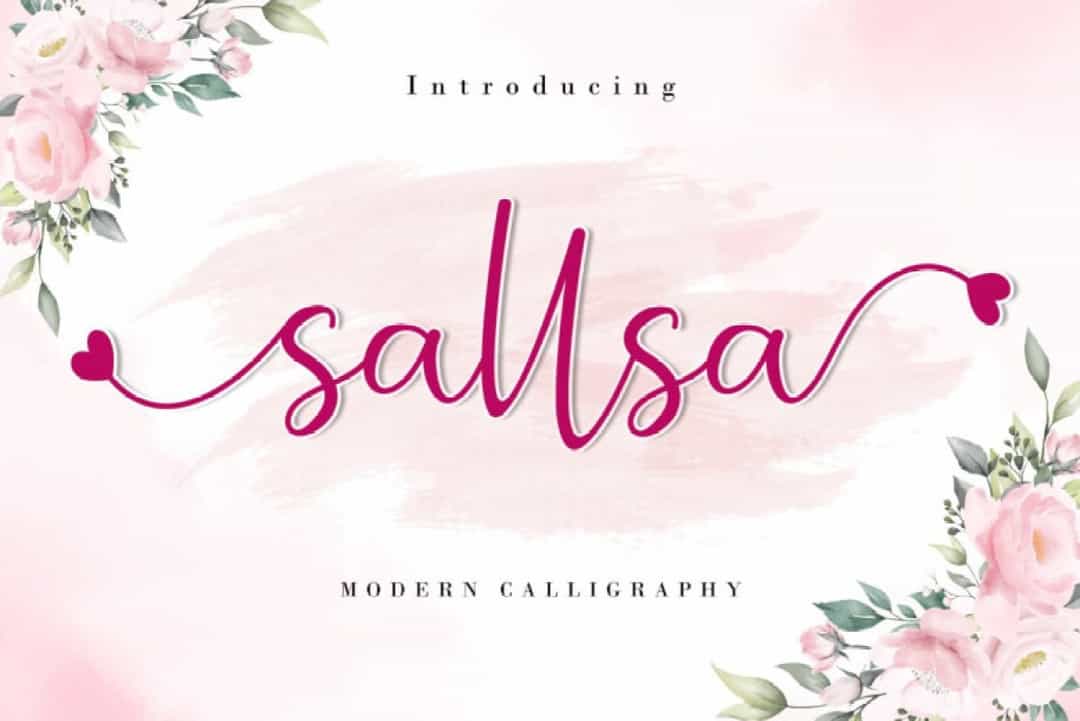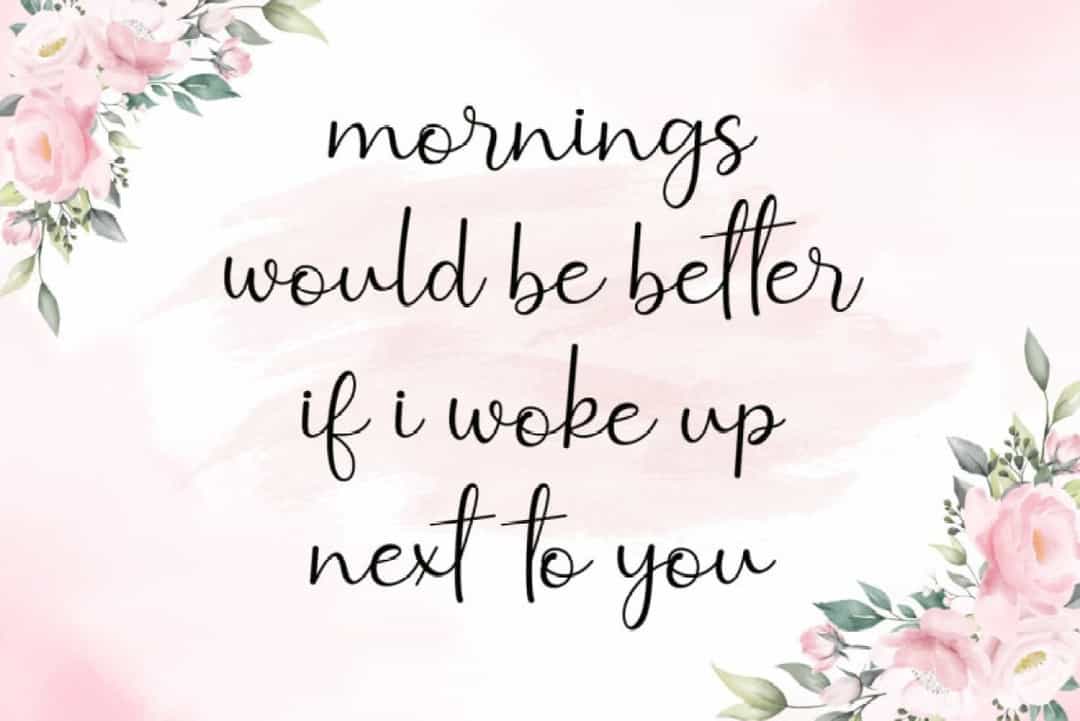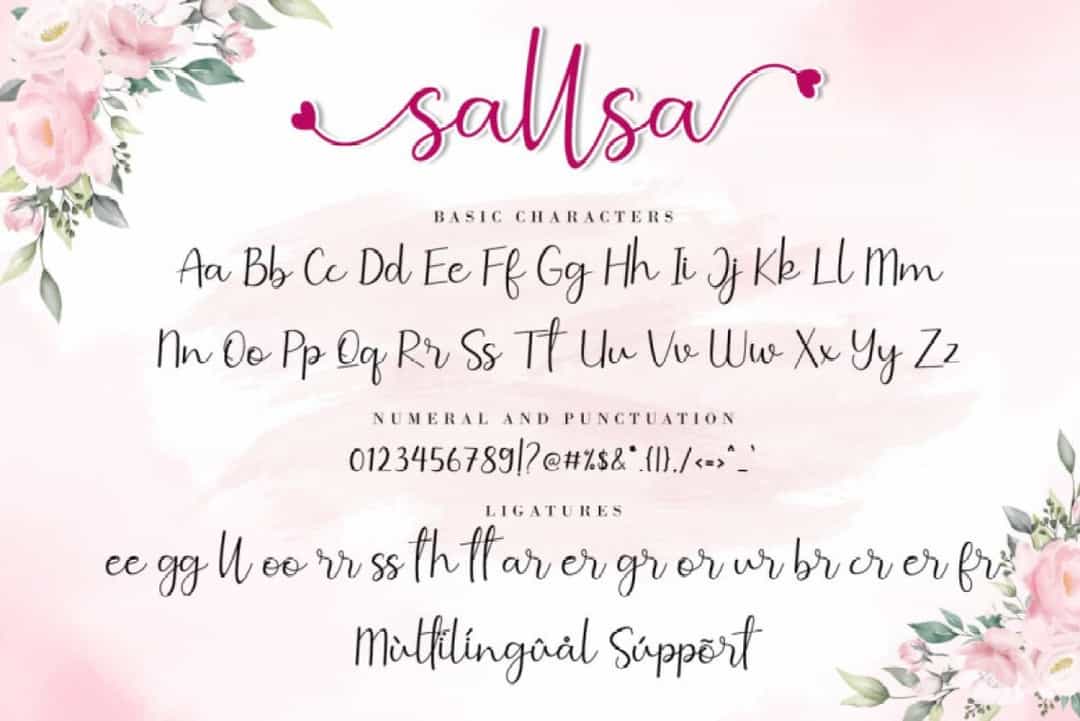
Sallsa is a beautiful and delicate script font that will look great on wedding invitations, thank you cards, quotes, greeting cards, business cards or logos that need calligraphic text.